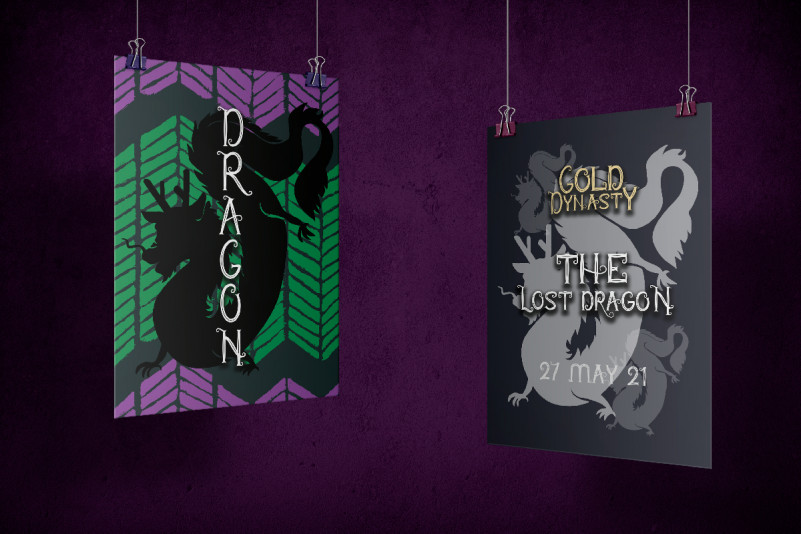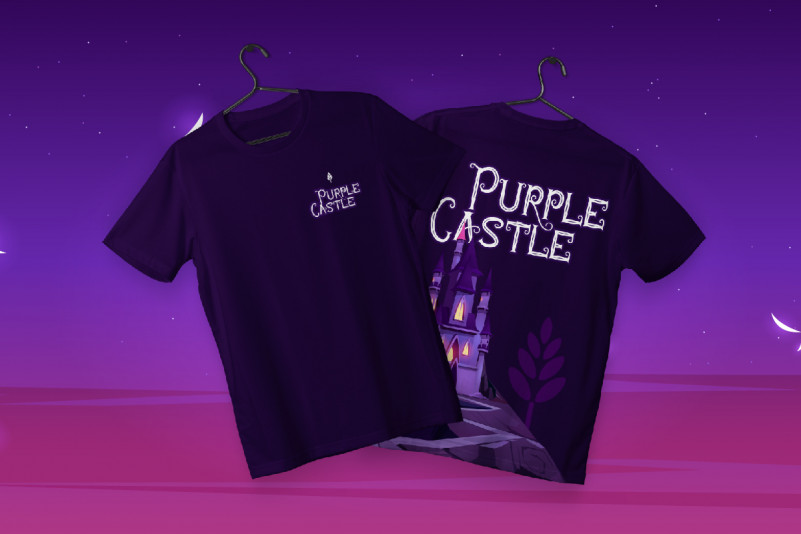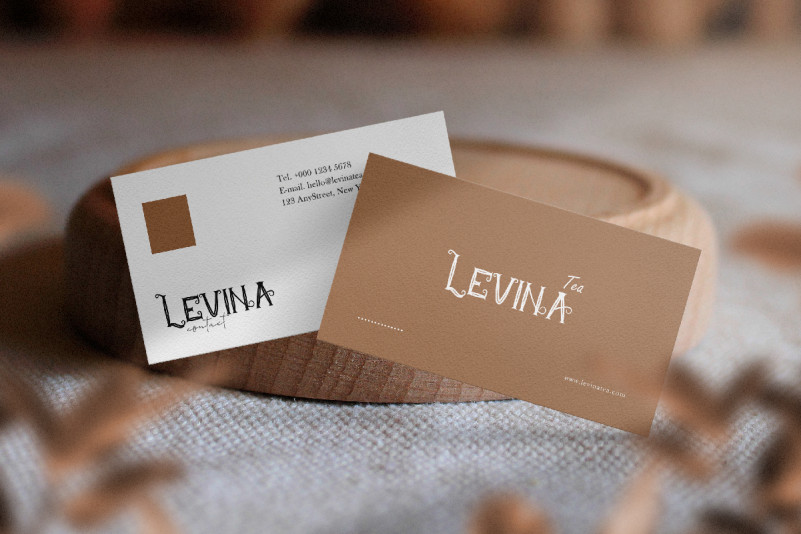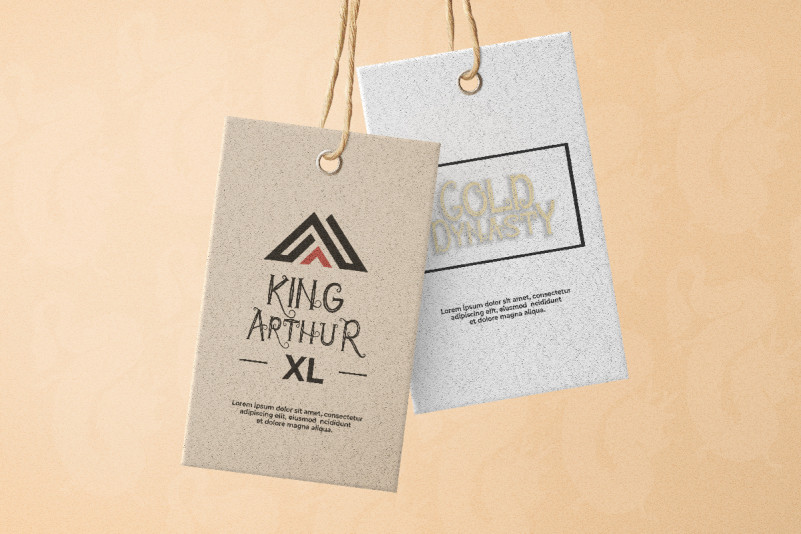
Lost Dragon Font
Lost Dragon Display Font
This font is handcrafted for any your special projects including : headlines, promotion, events, brandings, advertising, magazine, signage, invitation, stationery, social media posts, label, or and any projects that need unique special style. The industries for this font is Games, Movie, Music, Sport, Events, etc. Lost Dragon Font includes full set of gorgeous uppercase and lowercase letters ,numerals and Multi languages characters.